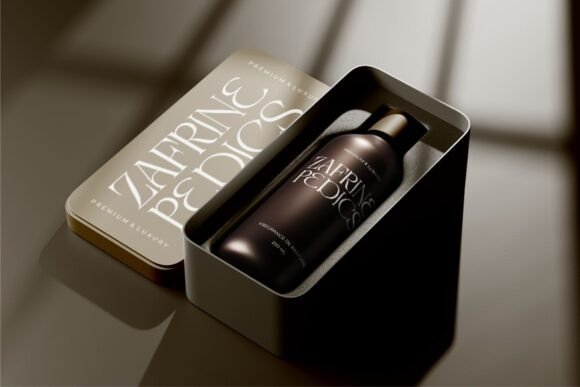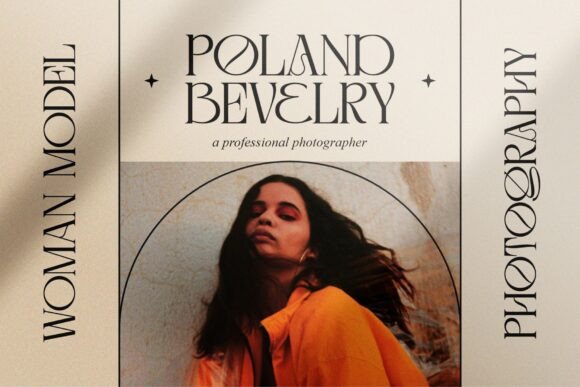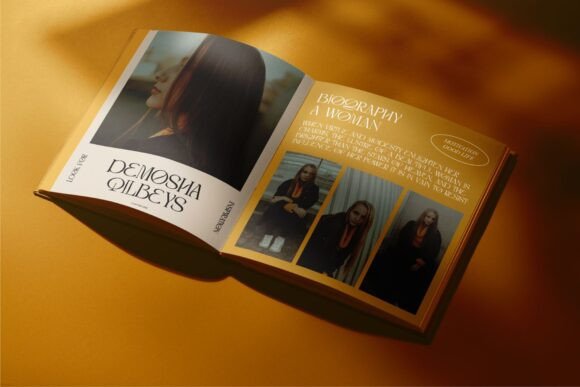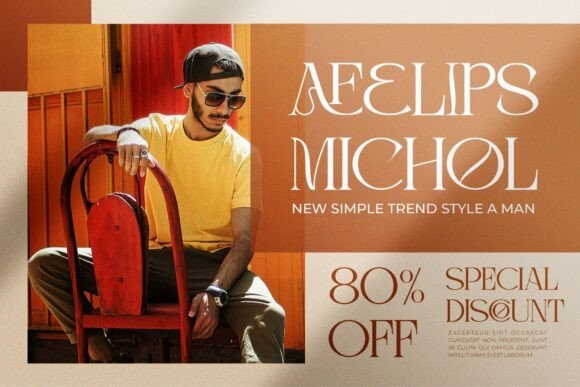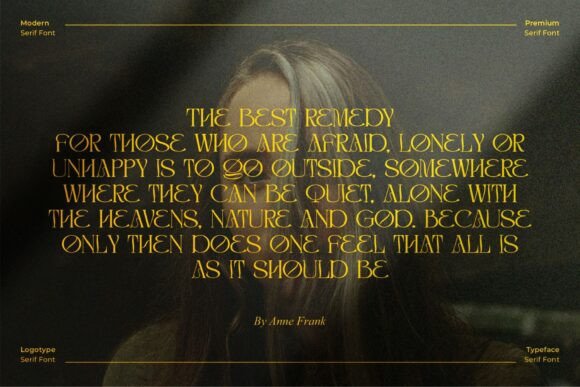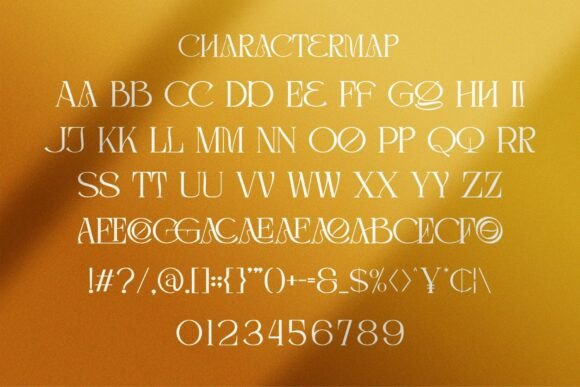
Unleashing Creativity with the Acerok Mages Font
Have you ever stared at a blank canvas, waiting for inspiration to strike? I know I have – and it’s moments like those that I wish I had a font that could spark my creativity. Imagine a font that’s as playful as it is sophisticated, with a unique charm that transports you to a whimsical world of wood and wonder.
Enter the Acerok Mages Font, a modern serif font that’s perfect for designers looking to add a touch of magic to their projects. With its bouncy, cute, and trendy vibe, this font is ideal for invitation card designs, company logos, movie titles, and more. Its versatility and unique character make it a valuable asset for designers, allowing them to create truly eye-catching and memorable designs.
Acerok Mages Font Key Features
- Font Family: Acerok Mages is a fantasy font, ideal for use in games, fantasy stories, and other applications that require a mystical or magical feel.
- Unique Characteristics: Features a unique blend of mystical and magical elements, with intricate details and flourishes that set it apart from other fantasy fonts.
Acerok Mages Font Review
Overall, I was quite excited to dive into the Acerok Mages Font, hoping for a unique and captivating experience. And, I must say, it’s a decent effort.
- The font’s mystical and ancient vibe is quite captivating. It transports you to a world of magic and wonder.
- The font’s versatility is impressive, making it suitable for a wide range of applications, from fantasy novels to game UIs.
- The font’s readability is surprisingly good, considering its intricate design.
- The font’s complexity may make it difficult to customize or modify for specific use cases.
- Some characters, especially those with diacritical marks, may be hard to read or may not display correctly.
- The font’s lack of comprehensive documentation may lead to confusion or frustration for designers who are not familiar with it.
Overall, the Acerok Mages Font is a solid choice for designers looking for a unique and captivating font. However, its limitations should not be overlooked, and designers should be aware of the potential issues before using it in their projects.
Tips for Getting the Most Out of Acerok Mages Font
For the best results, use Acerok Mages Font in titles, headings, and emphasis to create a striking visual effect. Experiment with different font sizes, colors, and styles to find the perfect balance for your design. You can also use it in combination with other fonts to create a unique and eye-catching look.
Acerok Mages Font is ideal for fantasy-themed designs, such as fantasy novels, role-playing games, and science fiction illustrations. It’s also great for creating a mystical or magical atmosphere in your designs, making it perfect for wedding invitations, event branding, and more.